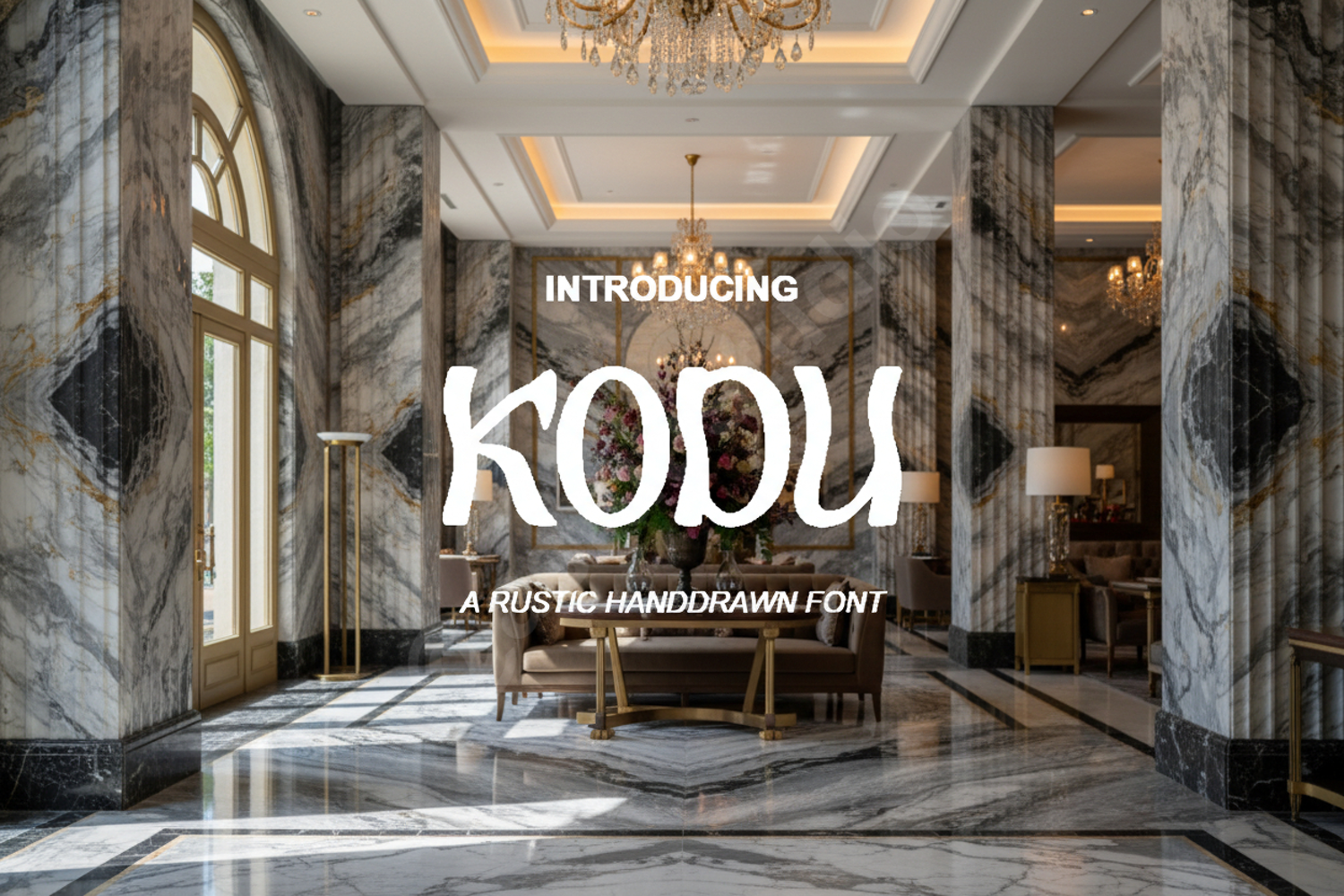
Kodu - Modern Minimalist Sans Serif Typeface
Kodu
Elevate your creative projects with Kodu, a premium sans serif typeface designed with modern aesthetics and geometric precision in mind. Kodu strikes the perfect balance between professional authority and contemporary flair, making it an essential addition to any designer's toolkit. Whether you are crafting a high-end brand identity or a clean digital interface, Kodu provides the clarity and sophistication your work deserves.
- Branding and Visual Identity: Create memorable logos and corporate stationery that stand out.
- Editorial Design: Perfect for clean layouts in magazines, lookbooks, and brochures.
- Digital Design: Optimized for legibility in web headers, UI/UX elements, and mobile apps.
- Social Media: Design striking graphics for Instagram, Pinterest, and LinkedIn.
- Advertising: Craft impactful headlines for print and digital marketing campaigns.